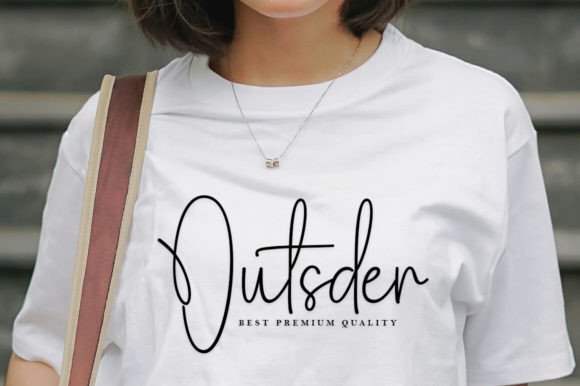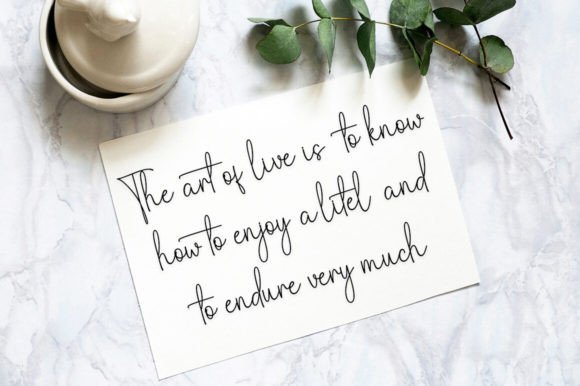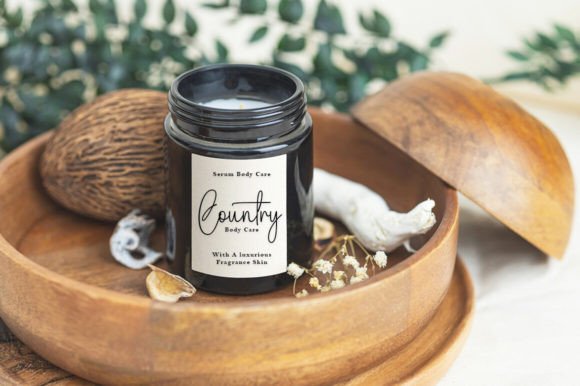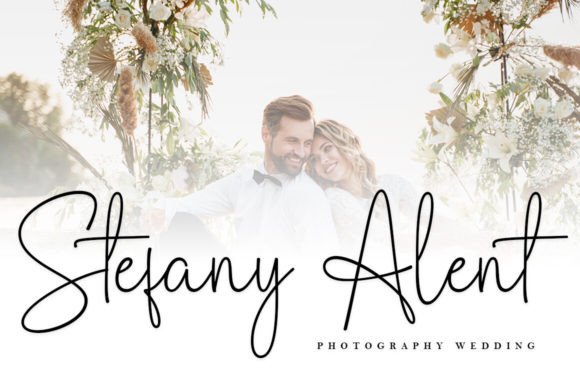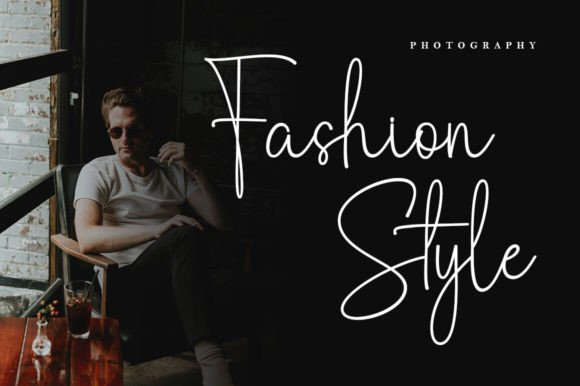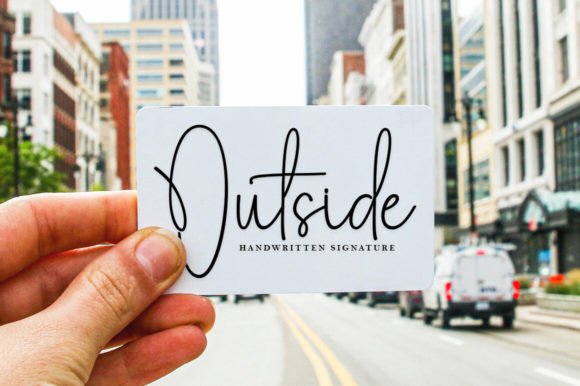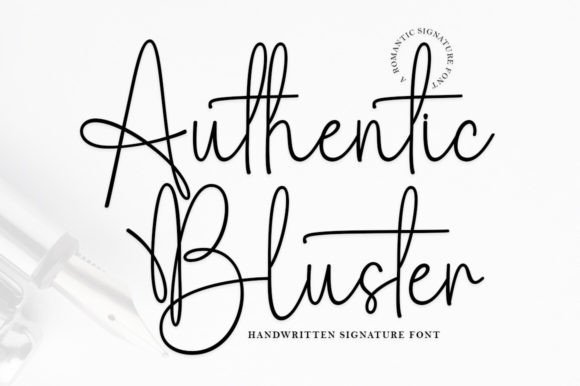
Discover the Elegance of Authentic Bluster Font: A Beautiful Script Font for Your Creative Projects
Are you a designer or crafter looking for a font that can add a touch of elegance and sophistication to your creative projects? Look no further than the Authentic Bluster Font. This beautiful script font is designed to provide a authentic feel and cursive handwriting look that is perfect for a variety of projects, from wedding invitations and greeting cards to branding and advertising materials.
What Makes Authentic Bluster Font So Special?
The Authentic Bluster Font is a stunning script font that features beautiful letters and perfect calligraphy. Its unique and elegant design makes it stand out from other fonts, and its versatility ensures that it can be used on a wide range of projects. Whether you’re looking to create a romantic and whimsical design or a more formal and sophisticated one, this font is sure to impress.
One of the key features that sets the Authentic Bluster Font apart is its PUA (Private Use Area) coding. This means that you can access all the glyphs and swashes easily, giving you complete creative control over your design. With the Authentic Bluster Font, you can add flourishes and swashes to your text to create a truly unique and eye-catching design.
The Benefits of Using Authentic Bluster Font
So why should you choose the Authentic Bluster Font for your next project? Here are just a few of the benefits of using this beautiful script font:
• Elegant and sophisticated design: The Authentic Bluster Font features a stunning script design that is perfect for creating elegant and sophisticated designs.
• Versatile: This font can be used on a wide range of projects, from wedding invitations and greeting cards to branding and advertising materials.
• PUA coded: The font’s PUA coding makes it easy to access all the glyphs and swashes, giving you complete creative control over your design.
The Authentic Bluster Font is perfect for designers and crafters who are looking for a beautiful and elegant script font to add to their collection. Whether you’re creating designs for clients or working on personal projects, this font is sure to impress.
Designers can use the Authentic Bluster Font to create stunning designs for clients, including:
• Greeting cards and gift tags
• Branding and advertising materials
Crafters can use the Authentic Bluster Font to create beautiful and personalized projects, including:
• Handmade cards and gift tags
• Journaling and scrapbooking
• DIY home decor and signs